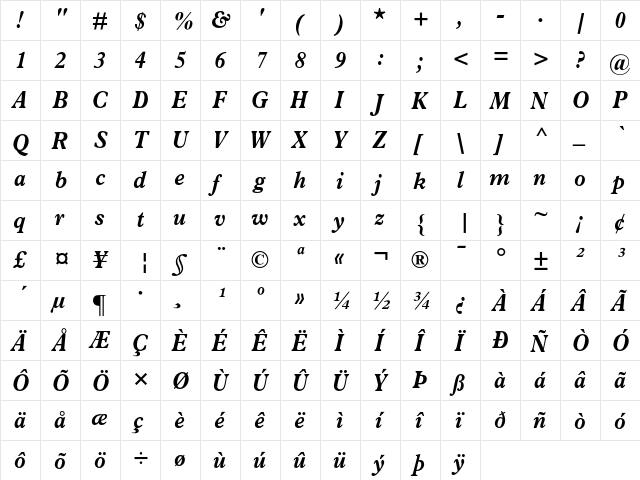
News Plantin Bold Italic Font Preview
Design Context for News Plantin Typeface
News Plantin takes a measured approach to typography — its balanced proportions and neutral character make it a reliable workhorse for both digital and print work. The dynamic lean of this cut emphasises speed and emphasis in any layout. The heavy weight commands attention and anchors typographic hierarchies.
Pro Tip: Try News Plantin for annotation and caption copy alongside an upright companion — the contrast in angle creates a dynamic but ordered typographic system.